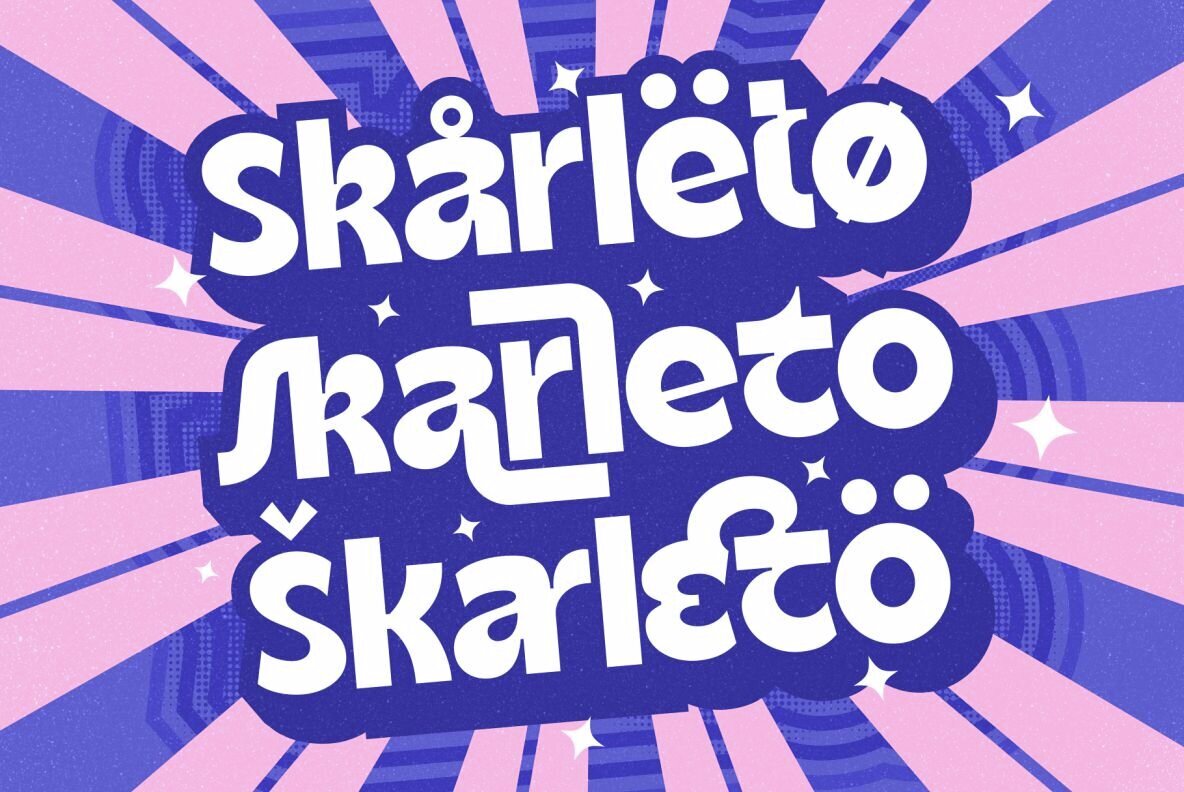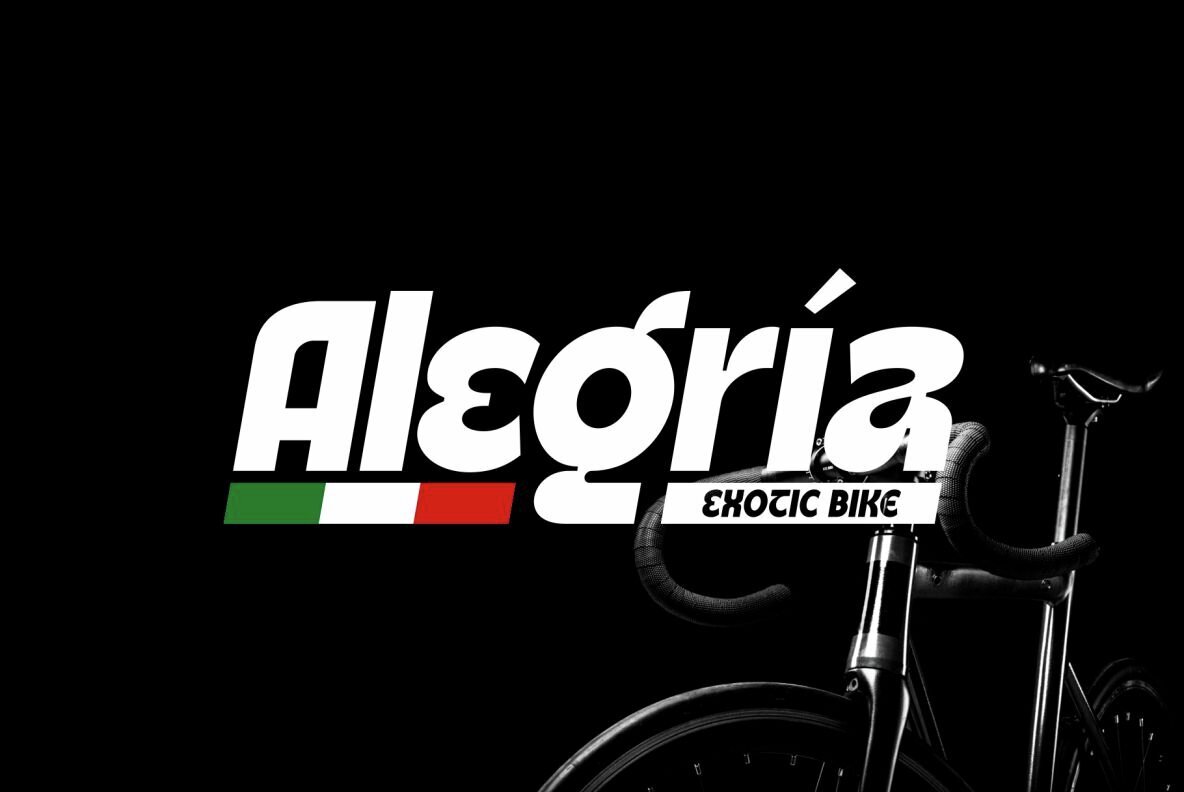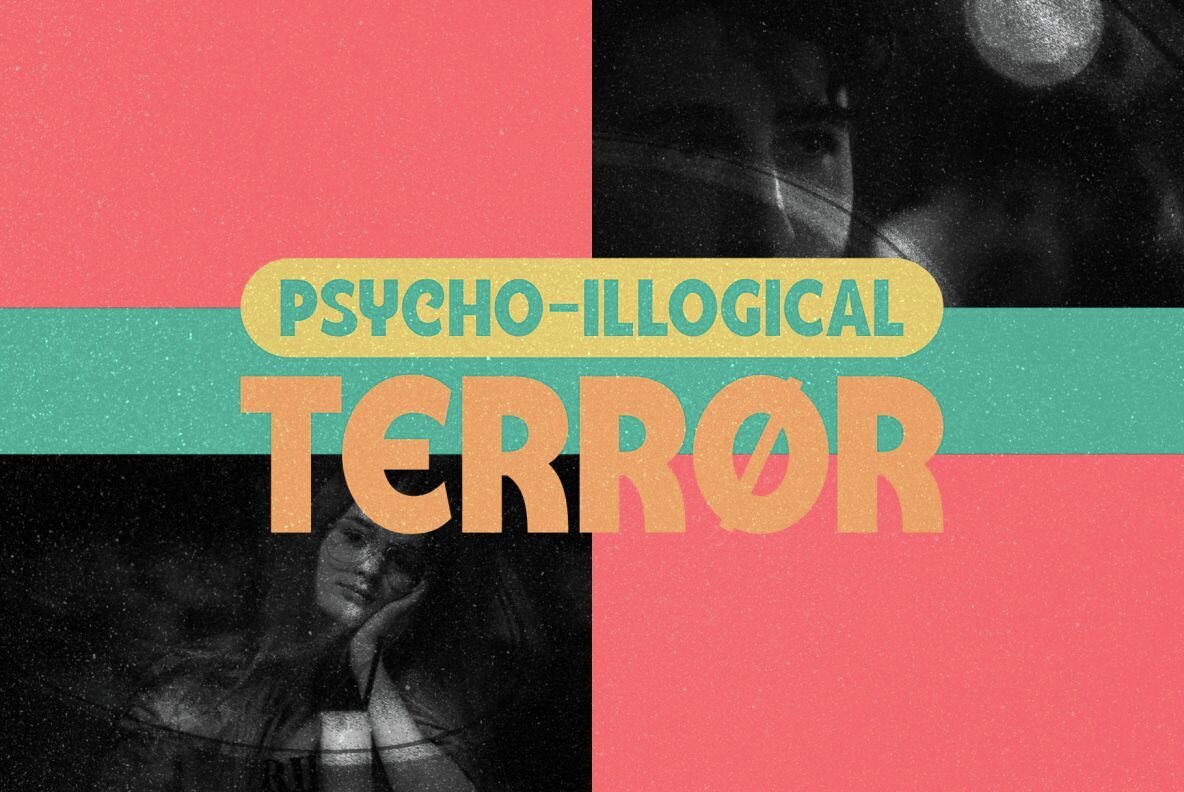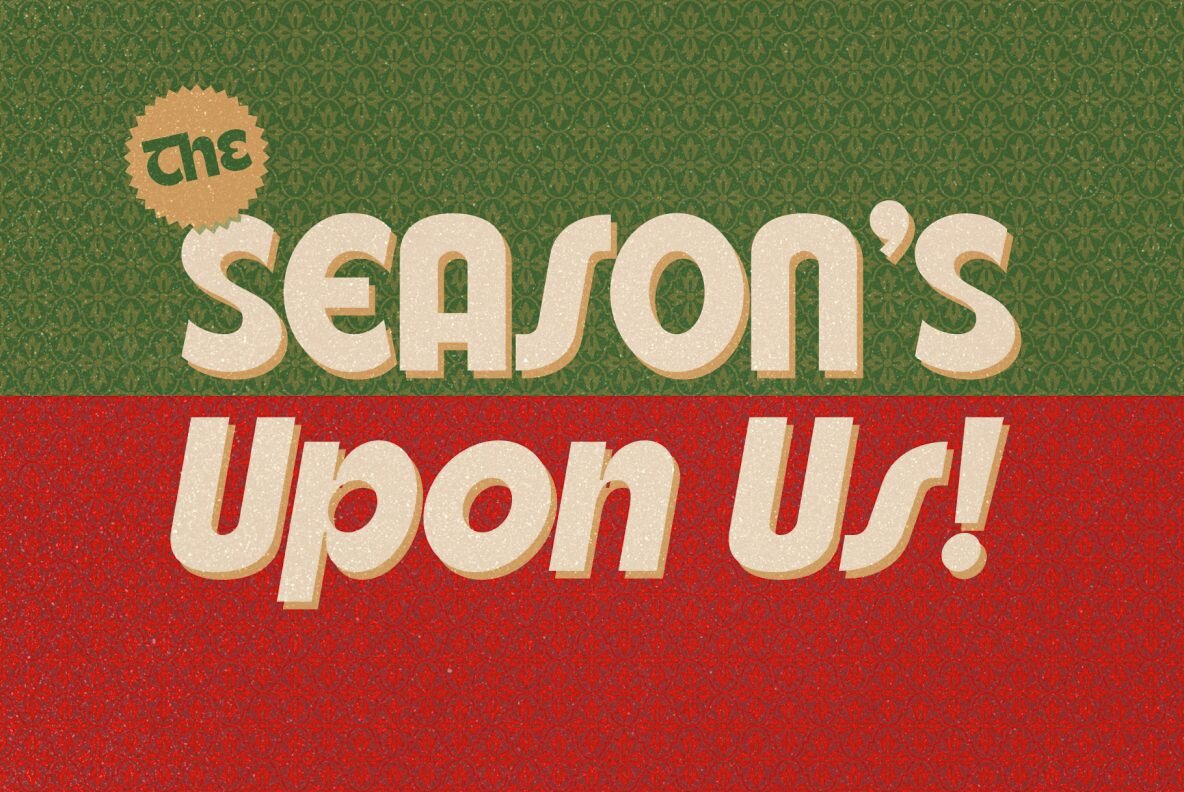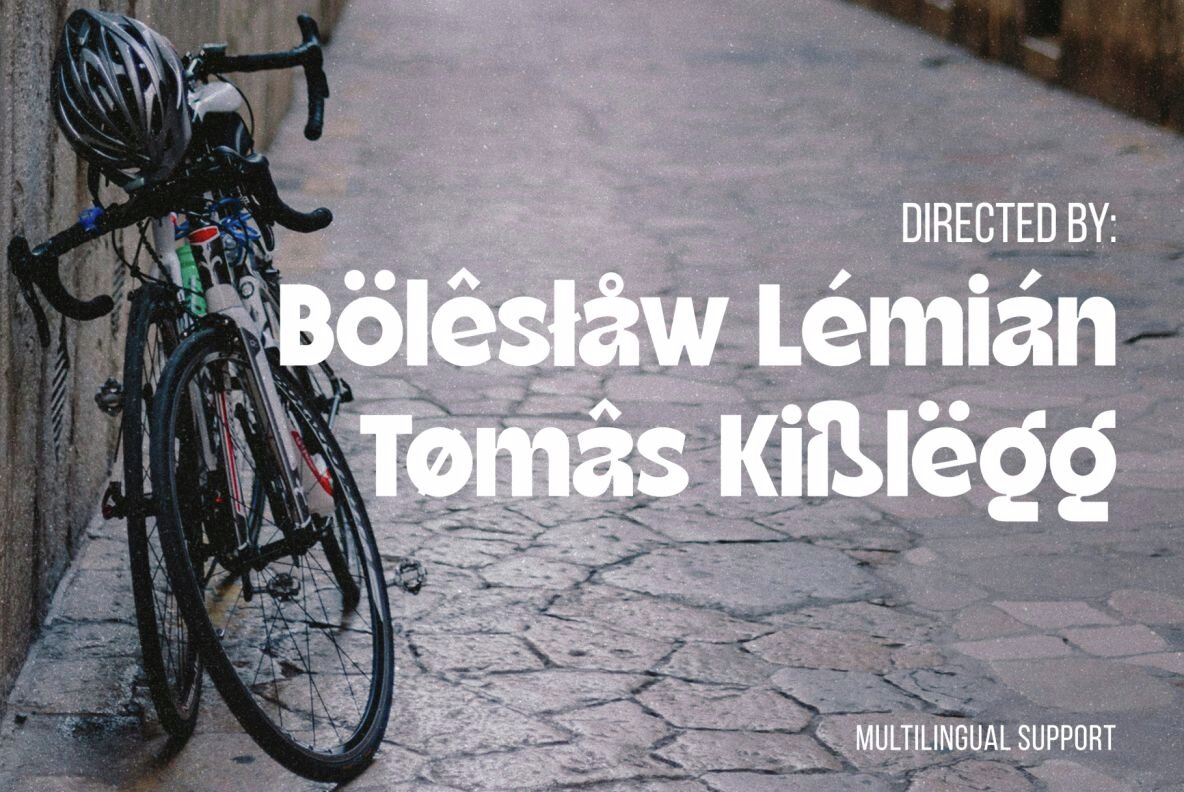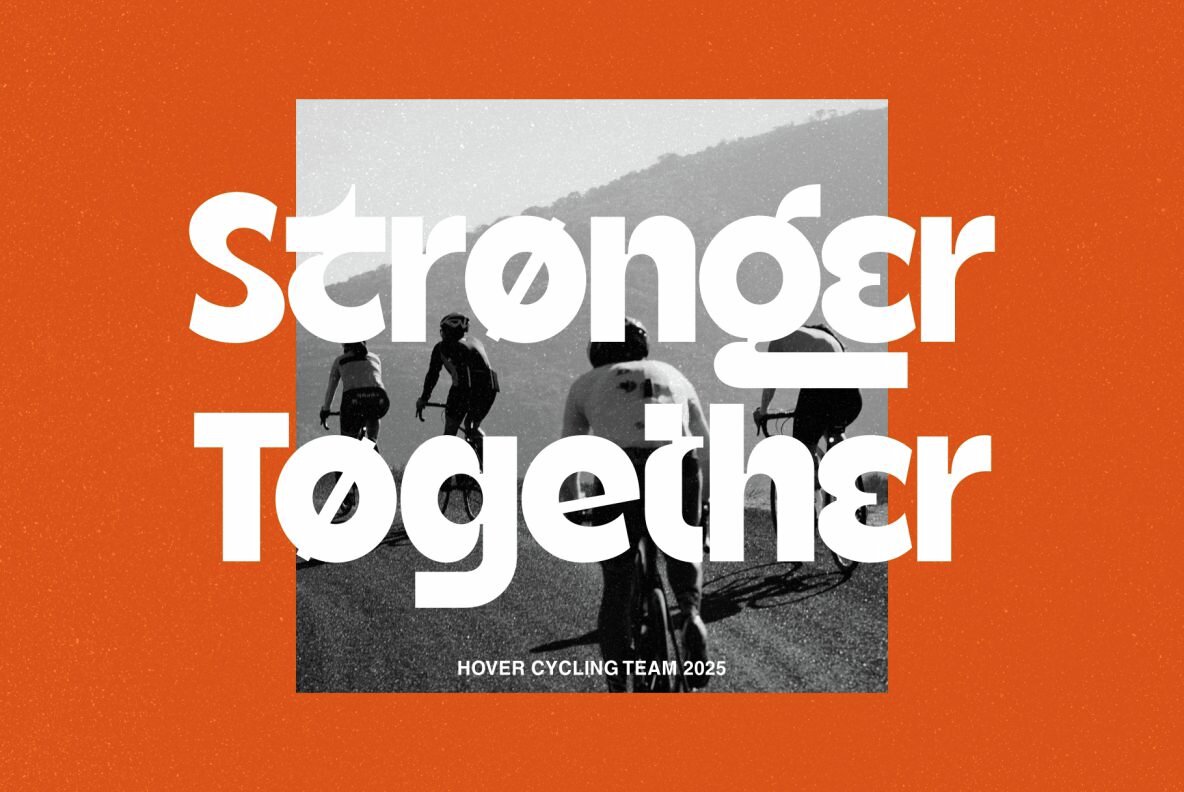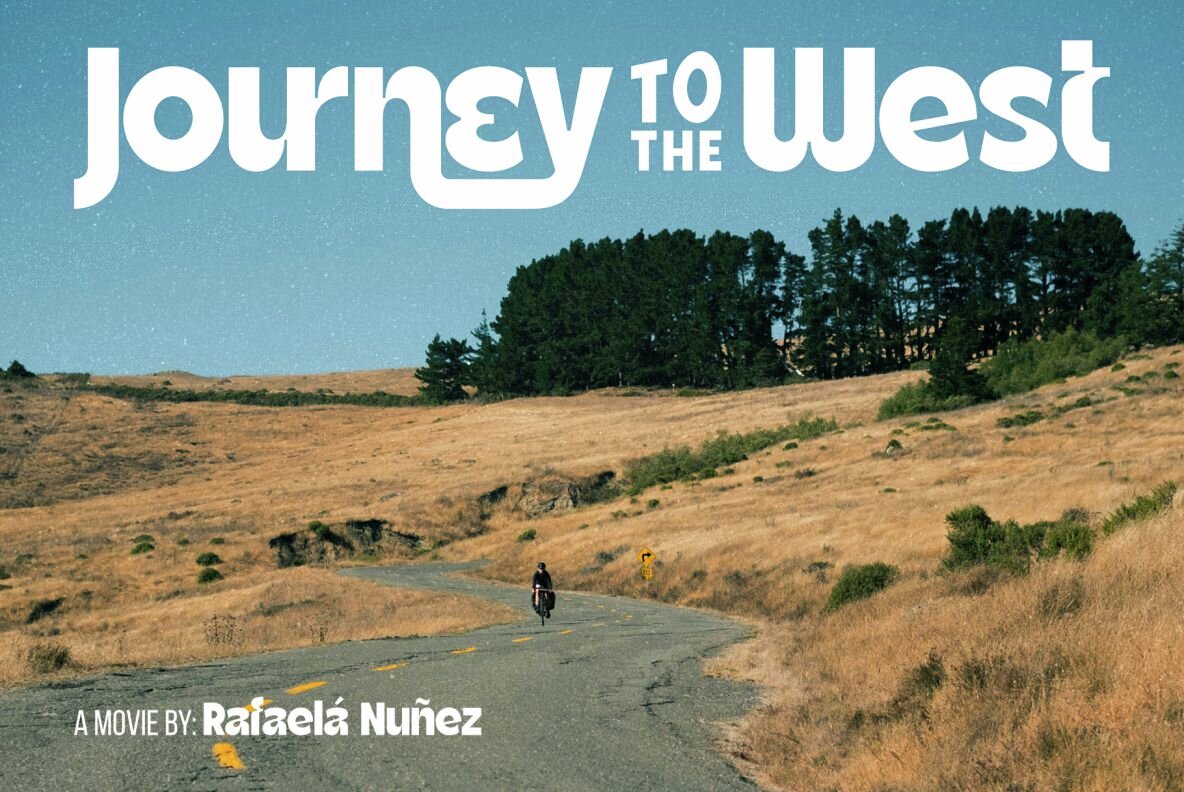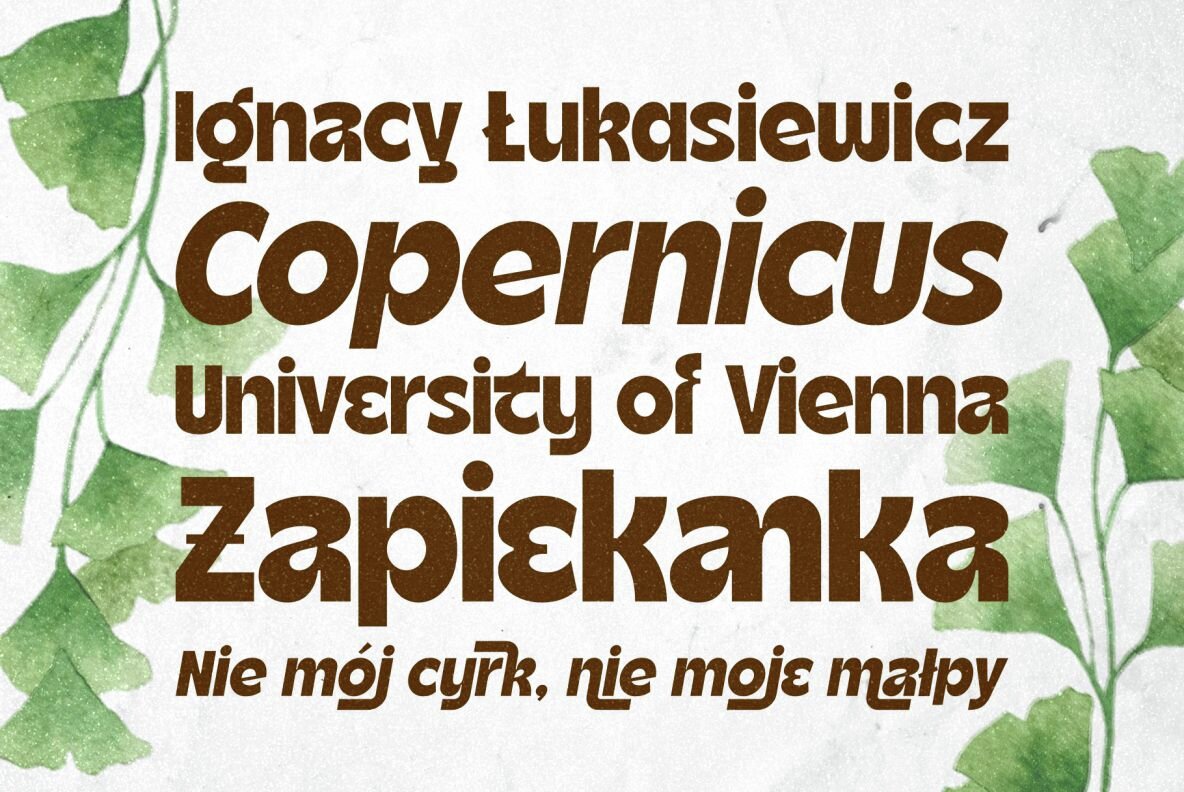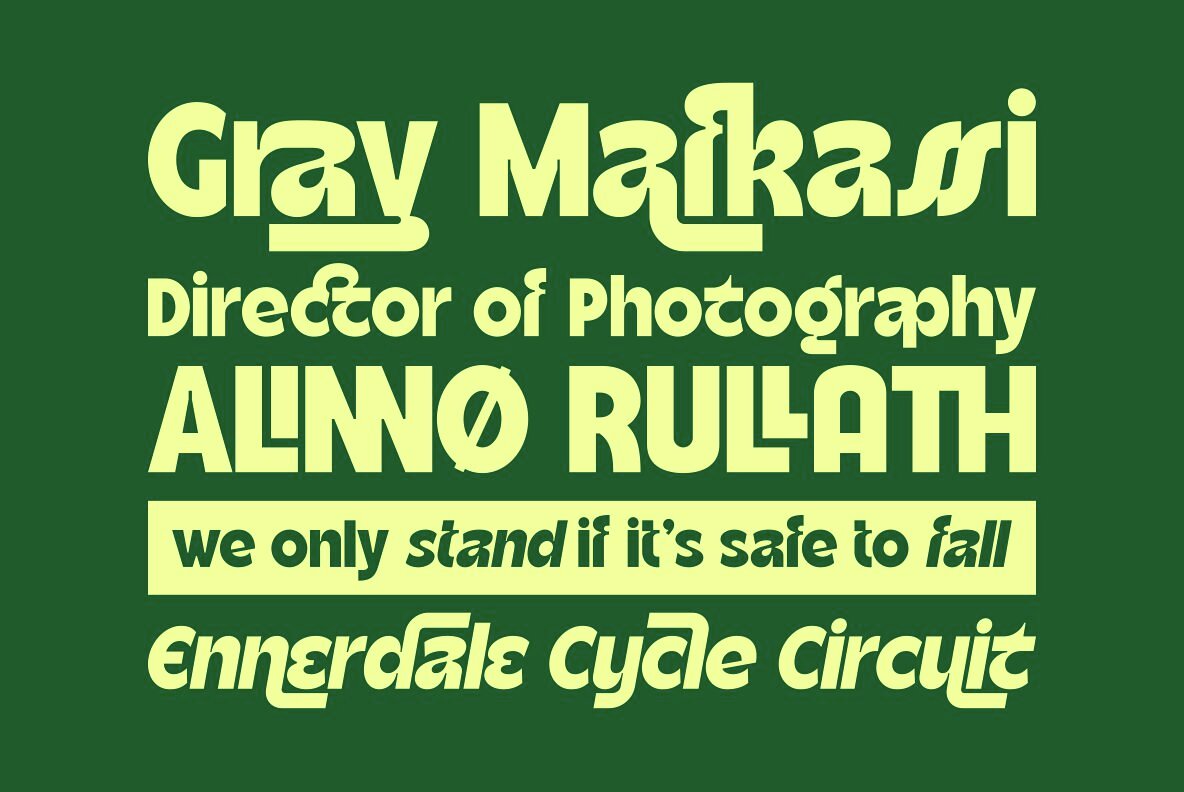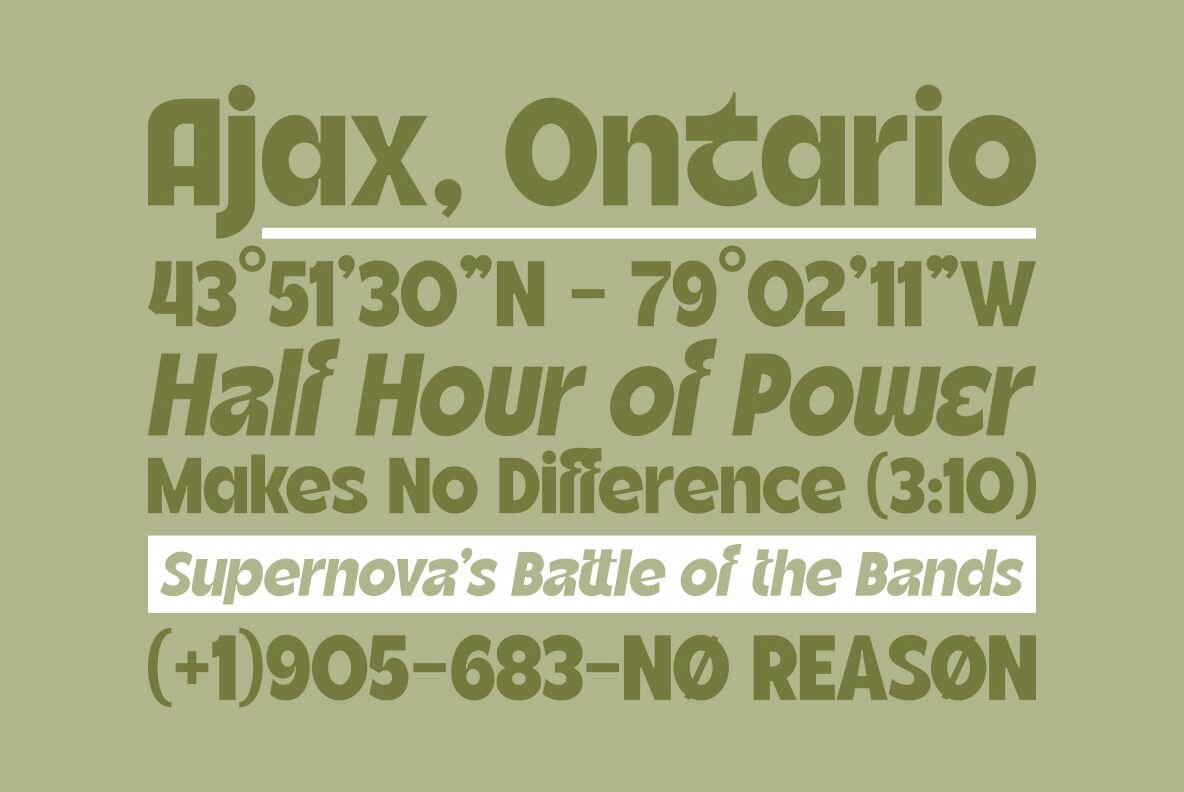
Skarleto Font
Skarleto is a bold and playful display sans serif font, inspired by current design trends. Meticulously crafted with crisp edges and smooth lines, this font offers excellent versatility for your creative projects. Its design includes alternate characters and ligatures, enabling diverse creative exploration.
Ideal for various applications, Skarleto is perfect for logo creation, branding, quote designs, poster work, headlines, and packaging. Its dynamic style brings a contemporary edge to any design theme, helping your projects stand out with its modern, funky flair.